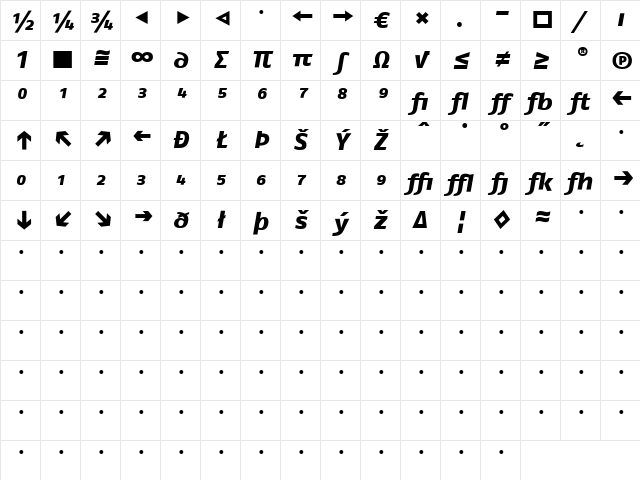
FagoEx ItalicExtrabold
Style: ItalicExtrabold
Foundry: Ole Schaefer, . Published by FontShop International for FontFont Release Fago Extended is a trademark of FSI Fonts and Software GmbH
Design Context for FagoEx
FagoEx is a composed and adaptable typeface that performs quietly and consistently across a wide range of design contexts. The slanted form adds forward momentum and visual energy. Its bold stroke weight gives it real presence on the page.
Pro Tip: Use FagoEx for emphasis, pull quotes, and subheadings where its slanted energy can add rhythm to the layout.
Who designed the FagoEx ItalicExtrabold font?
This font was published by Ole Schaefer, . Published by FontShop International for FontFont Release Fago Extended is a trademark of FSI Fonts and Software GmbH. Check the technical specs section for copyright and designer details.